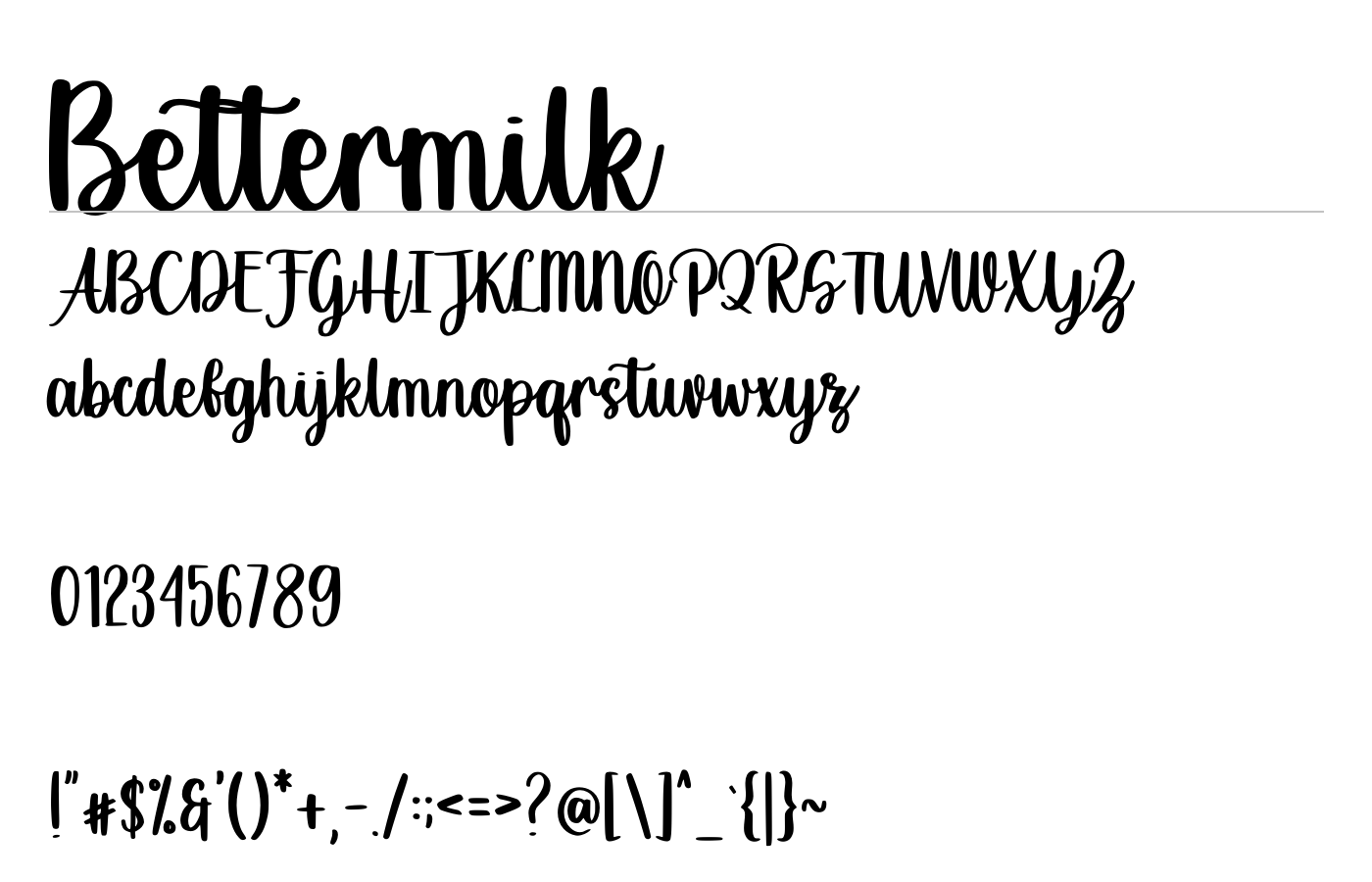
Bettermilk is a playful and charming script font with a friendly, hand-lettered feel. Its smooth, rounded strokes and slight irregularities give it an inviting and casual personality, making it perfect for creative branding, packaging, and headlines that seek a warm, approachable touch. This font works well where a lively yet readable style is desired, especially in designs that aim for a personal, handcrafted vibe.
Bettermilk Font
About Bettermilk Font
| Font family | Bettermilk Font |
| Designer | Panggah Laksono @ Abo Daniel Studio |
| Trademark | Abo Daniel Studio |